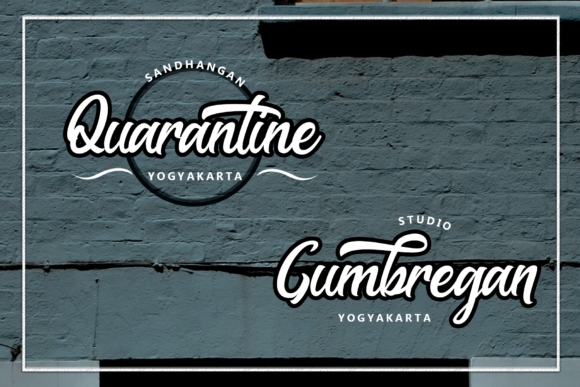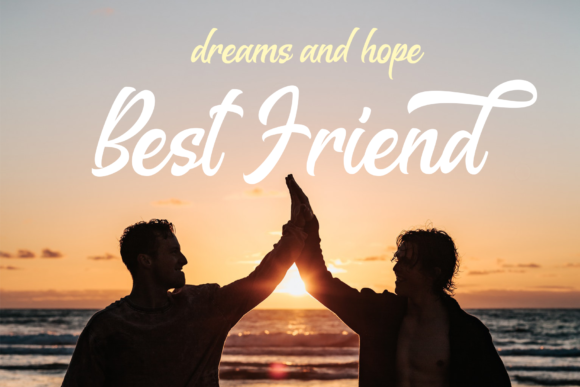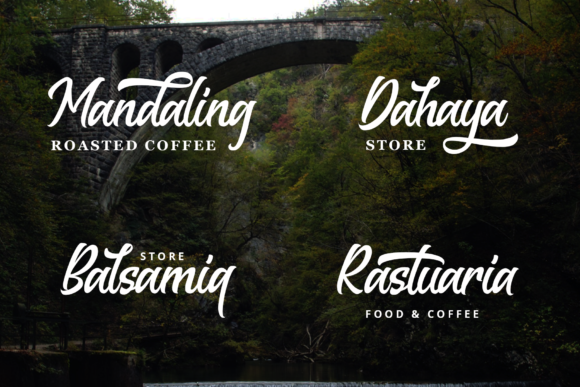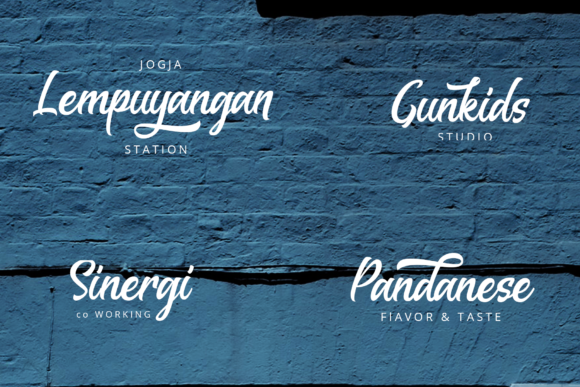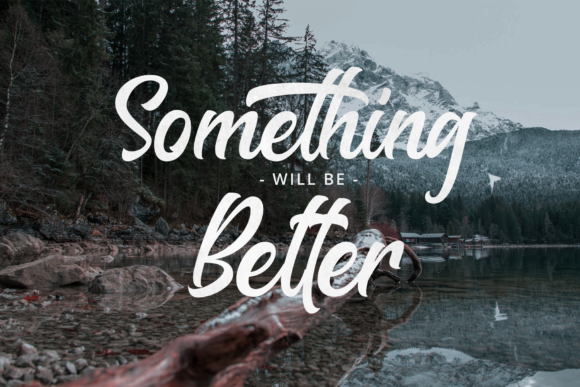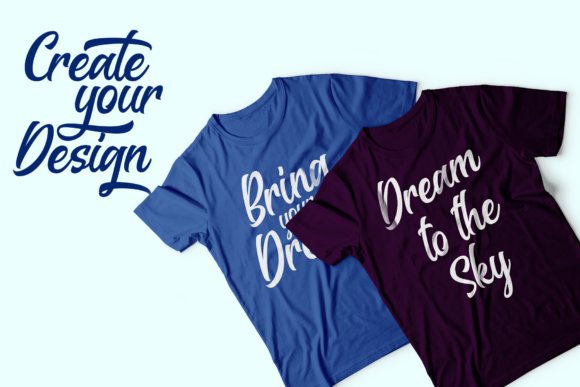
Introduction to Melantune Font
The Melantune is a bold script typeface that was inspired by a hand lettering artist from Indonesia.
It’s great for logos, t-shirts, labels, poster, letterheads, and much more .
Key Features of Melantune Font